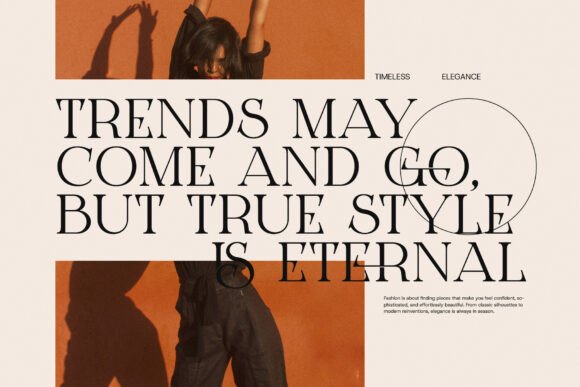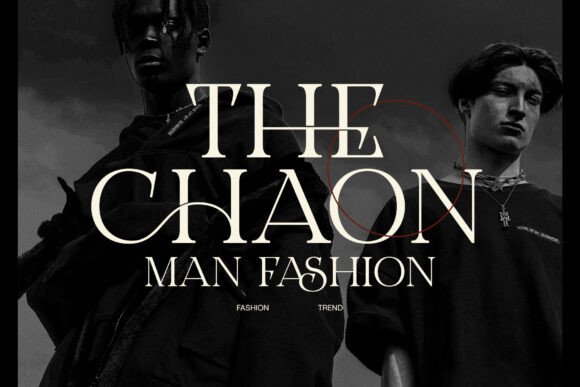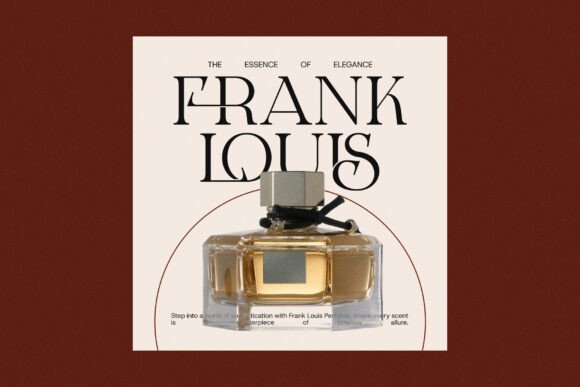
Introduction to Jorde Font
Jorde Logotype Serif Font is a bold yet refined serif typeface designed to make a lasting impression.
Merging classic serif elements with modern elegance, Jorde brings sophistication and versatility to your creative toolkitβ€”perfect for designers who want their typography to speak with clarity, charm, and confidence With its high-contrast strokes, refined curves, and beautifully crafted ligatures, Jorde is built for standout branding and visual storytelling.
Key Features of Jorde Font
Why Choose Jorde Font?
Jorde Font offers exceptional quality and versatility, making it a valuable addition to your design toolkit. Whether you’re creating for personal projects or commercial use, Jorde Font delivers professional results.